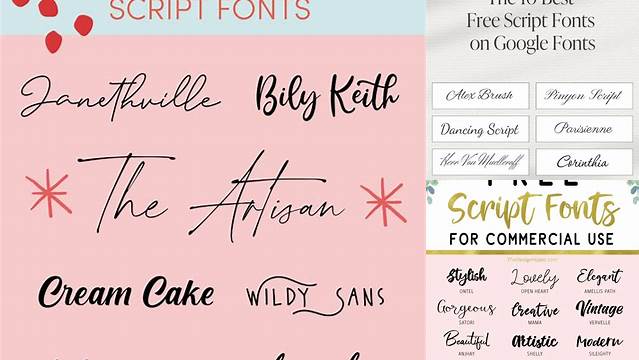
Best Free Script Fonts: Reddit's Top Picks
Hey guys! Are you on the hunt for some stunning script fonts but don't want to break the bank? You've come to the right place! We've scoured Reddit, the ultimate hub for all things cool and creative, to bring you the best free script fonts out there. Whether you're designing invitations, logos, websites, or anything in between, finding the perfect font can make all the difference. So, let's dive into the world of elegant swashes and flowing lines and discover some incredible fonts that won't cost you a dime! This article compiles the top recommendations and discussions from Reddit communities to provide you with a comprehensive list of high-quality, free script fonts.
What are the most popular free script fonts recommended on Reddit?
Reddit is a treasure trove of opinions and recommendations, especially when it comes to design resources. When you're looking for the best free script fonts, Redditors are always ready to share their favorites. Some consistently top the lists in various threads and discussions. These popular choices often balance aesthetics, readability, and versatility, making them suitable for a wide range of projects. One of the key advantages of tapping into Reddit's collective wisdom is the real-world usage examples and feedback you can find, helping you make a more informed decision. So, what are these top recommendations? Let's explore some of the most-loved free script fonts that Redditors rave about and understand why they've earned such high praise. Prepare to discover some fonts that might just become your new go-to choices for all your design needs!
Best free calligraphy fonts Reddit recommendations
When it comes to calligraphy fonts, Reddit users have some strong opinions on which ones stand out from the crowd. The best free script fonts often mimic the elegant, flowing strokes of traditional calligraphy, making them perfect for adding a touch of sophistication to your designs. Redditors frequently recommend fonts that offer a balance of beauty and readability, ensuring they look stunning without sacrificing usability. You'll often see suggestions for fonts with delicate flourishes and smooth connections between letters, creating a seamless, handwritten feel. These types of fonts are ideal for wedding invitations, elegant logos, and anything that needs a touch of class. But with so many options available, how do you choose the right one? Reddit discussions often delve into the nuances of each font, highlighting their strengths and weaknesses for different applications. Let's explore some of the top calligraphy font recommendations from the Reddit community to help you find the perfect fit for your next project.
Top free handwriting fonts according to Reddit users
If you're aiming for a personal, approachable feel in your designs, handwriting fonts are the way to go. And who better to ask for recommendations than the Reddit community? Redditors are always on the lookout for best free script fonts that capture the authentic look of handwriting, from neat and legible scripts to more casual, messy styles. These fonts are perfect for adding a human touch to your projects, making them feel more relatable and engaging. Whether you're designing a blog header, creating social media graphics, or crafting a heartfelt message, a good handwriting font can make all the difference. But with so many options out there, it can be tough to know where to start. That's where Reddit comes in! Redditors often share their favorite handwriting fonts, along with examples of how they've used them in their own work. Let's explore some of the top picks and discover the charm and versatility of free handwriting fonts.
How to pair free script fonts with other fonts (Reddit tips)
Choosing the perfect script font is just the first step – pairing it with the right complementary font is where the magic really happens! But how do you create a harmonious visual balance? Reddit users have plenty of tips and tricks for pairing best free script fonts with other fonts to achieve a professional and polished look. The key is to create contrast while maintaining readability and overall aesthetic appeal. Redditors often suggest pairing a script font with a clean, sans-serif font for a modern and balanced feel. For example, a flowing script paired with a simple font like Montserrat or Open Sans can create a striking contrast that's both elegant and easy to read. Another popular tip is to use a script font sparingly, such as for headings or callouts, and use a more legible font for the main body text. Reddit discussions often include examples of successful font pairings, giving you visual inspiration and practical advice. Let's explore some of these Reddit tips and learn how to master the art of font pairing to elevate your designs.
Reddit's favorite free script fonts for logos
When it comes to logo design, the font you choose can make or break your brand identity. A script font can add a touch of elegance, personality, and memorability to your logo, but finding the right one can be a challenge. Luckily, Reddit users have plenty of opinions and recommendations on the best free script fonts for logos. Redditors often emphasize the importance of legibility and versatility when selecting a script font for a logo. A font might look beautiful on its own, but it needs to be clear and recognizable in various sizes and applications, from business cards to websites. Reddit discussions often highlight fonts that strike a balance between style and practicality, ensuring your logo looks professional and impactful. You'll find recommendations for fonts with clean lines, unique flourishes, and a timeless appeal. Let's delve into the Reddit community's favorite free script fonts for logos and discover the secrets to creating a logo that truly stands out.
Free script fonts for wedding invitations: Reddit's elegant choices
Planning a wedding involves countless details, and choosing the right font for your invitations is crucial for setting the tone and style of your big day. Script fonts are a popular choice for wedding invitations, as they evoke a sense of elegance, romance, and sophistication. But with so many options available, where do you even start? Reddit users have you covered with their recommendations for the best free script fonts for wedding invitations. Redditors often suggest fonts that are both beautiful and legible, ensuring your invitations look stunning and are easy to read. You'll find discussions on fonts with delicate swashes, graceful curves, and a touch of personality. Many Reddit users also share tips on how to pair script fonts with other fonts to create a cohesive and visually appealing invitation suite. From classic calligraphy-inspired fonts to more modern and whimsical scripts, there's a perfect free font out there for every wedding style. Let's explore the Reddit community's elegant choices and discover the ideal font to make your wedding invitations truly special.
Best free script fonts for Cricut projects Reddit recommends
Cricut machines have opened up a world of crafting possibilities, and choosing the right font is essential for creating beautiful and precise designs. Script fonts are a popular choice for Cricut projects, adding a personal and elegant touch to everything from cards and signs to home decor. But not all fonts are created equal when it comes to Cricut, so where do you turn for advice? Reddit, of course! Redditors in the Cricut community are always sharing their favorite fonts and tips for getting the best results. They often recommend fonts that are clean, smooth, and easy to cut, ensuring your Cricut projects look professional and polished. You'll find discussions on fonts with consistent line thickness, minimal fine details, and a design that holds up well when cut and weeded. The best free script fonts for Cricut often balance style and functionality, providing a beautiful aesthetic without sacrificing ease of use. Let's dive into the Reddit community's recommendations and discover the perfect free script fonts for your next Cricut project.
Free cursive fonts for Microsoft Word: Reddit's top picks
Microsoft Word is a go-to tool for countless writing and design tasks, and sometimes you need a beautiful cursive font to add a special touch to your documents. Whether you're crafting a resume, writing a letter, or designing a flyer, the right font can make all the difference. But which cursive fonts are the best, and where can you find them for free? Reddit users have plenty of recommendations to share! Redditors often suggest fonts that are both elegant and legible in Word documents, ensuring your text looks professional and is easy to read. You'll find discussions on fonts with smooth curves, consistent spacing, and a design that works well on screen and in print. The best free script fonts for Microsoft Word strike a balance between style and practicality, providing a beautiful aesthetic without sacrificing readability. Many Reddit users also share tips on how to install and use fonts in Word, making the process seamless and straightforward. Let's explore the Reddit community's top picks and discover the perfect free cursive fonts to enhance your Microsoft Word documents.
Reddit's free script fonts for Procreate lettering
Procreate is a powerhouse app for digital artists and letterers, and choosing the right font can significantly enhance your artwork. Script fonts are particularly popular in Procreate, adding a touch of elegance and personality to your designs. But with so many fonts available, where do you start? Reddit users have plenty of suggestions for the best free script fonts to use in Procreate. Redditors often recommend fonts that are smooth, versatile, and easy to work with in the app. You'll find discussions on fonts with clean lines, consistent weight, and a design that's well-suited for digital lettering. The best free script fonts for Procreate often balance style and functionality, providing a beautiful aesthetic while remaining easy to manipulate and customize. Many Reddit users also share tips on how to import fonts into Procreate and use them effectively in your lettering projects. Let's dive into the Reddit community's recommendations and discover the perfect free script fonts to elevate your Procreate creations.
Unique free script fonts Reddit users are loving
Tired of the same old script fonts and looking for something a little different? Reddit users are always on the hunt for unique and interesting fonts, and they're happy to share their discoveries. If you're seeking best free script fonts that stand out from the crowd, Reddit is a great place to find inspiration. Redditors often recommend fonts with distinctive features, such as unusual letterforms, playful swashes, or a hand-drawn feel. You'll find discussions on fonts that are perfect for adding a touch of personality and creativity to your designs. These unique script fonts can help your projects stand out and make a lasting impression. But where do you even begin to find these hidden gems? Reddit discussions often highlight lesser-known font foundries and websites that offer a treasure trove of unique and free script fonts. Let's explore some of the Reddit community's favorite unique free script fonts and discover the perfect font to make your designs truly memorable.
Modern free script fonts: Reddit's trendy picks
If you're aiming for a contemporary and stylish look, modern script fonts are the way to go. But with so many options out there, it can be tough to find the perfect one. Reddit users are always on the cutting edge of design trends, and they have plenty of recommendations for the best free script fonts. Redditors often suggest fonts that are sleek, minimalist, and on-trend. You'll find discussions on fonts with clean lines, geometric shapes, and a modern sensibility. These fonts are perfect for creating designs that feel fresh, current, and visually appealing. Modern script fonts often strike a balance between elegance and simplicity, making them versatile for a wide range of projects. Reddit discussions often highlight fonts that are popular in the design world right now, giving you a glimpse into what's trending. Let's explore the Reddit community's favorite modern free script fonts and discover the perfect font to give your designs a contemporary edge.
Elegant free script fonts recommended on Reddit
For projects that demand sophistication and grace, elegant script fonts are a classic choice. But finding a free option that truly embodies elegance can be a challenge. Luckily, Reddit users have plenty of recommendations for the best free script fonts that exude refinement and style. Redditors often suggest fonts with flowing lines, delicate swashes, and a timeless appeal. You'll find discussions on fonts that are perfect for wedding invitations, formal announcements, and other projects that call for a touch of class. These elegant script fonts often draw inspiration from traditional calligraphy, adding a sense of tradition and heritage to your designs. Reddit discussions often delve into the nuances of each font, highlighting their unique characteristics and suitability for different applications. Let's explore some of the Reddit community's top picks for elegant free script fonts and discover the perfect font to elevate your designs.
Best free script fonts for tattoos Reddit users suggest
Tattoos are a permanent form of self-expression, so choosing the right font is crucial for ensuring your ink looks amazing for years to come. Script fonts are a popular choice for tattoos, adding a touch of elegance and personality to your design. But what fonts hold up best over time, and which ones are recommended by tattoo enthusiasts? Reddit users have plenty of experience and opinions to share on the best free script fonts for tattoos. Redditors often suggest fonts that are clean, legible, and timeless, ensuring your tattoo looks great now and in the future. You'll find discussions on fonts with consistent line thickness, clear letterforms, and a design that won't blur or fade easily. The best free script fonts for tattoos often balance style and practicality, providing a beautiful aesthetic while remaining easy to read and maintain. Let's dive into the Reddit community's recommendations and discover the perfect free script fonts for your next tattoo.
Free script fonts with swashes: Reddit's decorative favorites
If you want to add a touch of flair and personality to your designs, script fonts with swashes are the way to go. These decorative flourishes can make your text stand out and add a sense of elegance and whimsy. But with so many swash fonts available, where do you even begin? Reddit users have plenty of recommendations for the best free script fonts with swashes. Redditors often suggest fonts with well-designed swashes that complement the letterforms and add a touch of sophistication. You'll find discussions on fonts with varying degrees of ornamentation, from subtle flourishes to elaborate swirls. These fonts are perfect for creating headlines, logos, invitations, and other projects that need a touch of visual interest. Reddit discussions often highlight fonts that strike a balance between style and readability, ensuring your text looks beautiful without sacrificing legibility. Let's explore some of the Reddit community's decorative favorites and discover the perfect free script font with swashes for your next project.
How to identify a free script font for commercial projects (Reddit guide)
Navigating font licenses can be tricky, especially when you're using fonts for commercial projects. It's crucial to ensure you have the legal right to use a font without violating copyright laws. So, how do you identify best free script fonts that are safe to use for commercial purposes? Reddit users have plenty of advice and resources to share. Redditors often emphasize the importance of checking the font's license before using it in any project that generates income. You'll find discussions on how to read font licenses, what terms to look for, and where to find reliable information about font usage rights. Reddit users also recommend using reputable font websites that clearly indicate the licensing terms for each font, such as Google Fonts and Font Squirrel. These platforms often offer fonts with licenses that explicitly permit commercial use, giving you peace of mind. Let's delve into the Reddit community's guide to identifying free script fonts for commercial projects and learn how to protect yourself while creating stunning designs.
Reddit's advice on using free script fonts online
Using script fonts online can add a touch of personality and style to your website, blog, or social media presence. But not all script fonts are created equal when it comes to web use. Some fonts may not render well on different devices or browsers, leading to a poor user experience. So, what's the best way to use best free script fonts online? Reddit users have plenty of advice to share. Redditors often recommend using web-safe script fonts that are optimized for online display. You'll find discussions on fonts that are legible, load quickly, and look great on a variety of screens. Reddit users also suggest using font pairing techniques to ensure your script font complements your other web fonts and creates a cohesive design. It's crucial to consider factors such as readability, loading time, and cross-browser compatibility when choosing a script font for your online projects. Let's explore the Reddit community's advice on using free script fonts online and discover the best practices for creating a visually appealing and user-friendly web presence.
Free script fonts that look expensive: Reddit's hidden gems
Who doesn't love finding a freebie that looks like it cost a fortune? When it comes to script fonts, there are plenty of hidden gems out there that offer a high-end look without the hefty price tag. Reddit users are experts at uncovering these treasures, and they're happy to share their finds. If you're seeking best free script fonts that exude luxury and sophistication, Reddit is the place to be. Redditors often recommend fonts with elegant letterforms, refined swashes, and a timeless appeal. You'll find discussions on fonts that look like they belong in a designer's collection, but are actually available for free. These fonts can elevate your projects and give them a professional, polished look. But where do you find these elusive gems? Reddit discussions often highlight lesser-known font foundries and websites that offer a selection of high-quality free script fonts. Let's explore some of the Reddit community's favorite free script fonts that look expensive and discover the secrets to achieving a luxurious aesthetic without breaking the bank.
Reddit's favorite free brush script fonts
Brush script fonts are a fantastic way to add a hand-painted, artistic feel to your designs. These fonts mimic the strokes of a brush or marker, creating a casual and expressive look. But with so many brush script fonts available, where do you start your search? Reddit users have plenty of recommendations for the best free script fonts. Redditors often suggest fonts with textured strokes, varying line weights, and a natural, hand-drawn aesthetic. You'll find discussions on fonts that are perfect for creating logos, posters, social media graphics, and other projects that need a touch of personality. These brush script fonts can add a unique and creative flair to your designs. Reddit discussions often highlight fonts that strike a balance between style and legibility, ensuring your text looks beautiful and is easy to read. Let's explore some of the Reddit community's favorite free brush script fonts and discover the perfect font to bring an artistic touch to your next project.
Free script fonts for Cricut writing projects: Reddit's tips
Using your Cricut for writing projects opens up a world of creative possibilities, from personalized cards to custom home decor. But choosing the right script font is crucial for achieving clean, precise results. Not all fonts are created equal when it comes to Cricut writing, so where do you turn for advice? Reddit, of course! Redditors in the Cricut community are always sharing their favorite fonts and tips for success. They often recommend fonts that are smooth, simple, and easy to write with a Cricut pen. You'll find discussions on fonts with consistent line thickness, minimal fine details, and a design that produces clear, legible text. The best free script fonts for Cricut writing projects often balance style and functionality, providing a beautiful aesthetic while remaining easy to work with. Reddit users also share tips on adjusting font settings and using the correct pen pressure for optimal results. Let's dive into the Reddit community's recommendations and discover the perfect free script fonts for your next Cricut writing project.
Free vintage script fonts: Reddit's classic choices
If you're aiming for a retro or nostalgic feel in your designs, vintage script fonts are the perfect choice. These fonts evoke the charm and elegance of bygone eras, adding a touch of history and character to your projects. But finding authentic-looking vintage script fonts for free can be a challenge. Luckily, Reddit users have plenty of recommendations to share. Redditors often suggest fonts that mimic the letterforms and styles of vintage signage, advertisements, and ephemera. You'll find discussions on fonts with distressed textures, ornate details, and a timeless appeal. These fonts are perfect for creating logos, posters, invitations, and other projects that need a touch of old-world charm. The best free script fonts often balance authenticity and readability, ensuring your designs look vintage without sacrificing legibility. Let's explore some of the Reddit community's classic choices and discover the perfect free vintage script font to transport your designs back in time.
How Reddit helps in finding the best free script fonts
Reddit's power lies in its community – a vast network of individuals sharing knowledge, opinions, and recommendations. When it comes to finding the best free script fonts, Reddit serves as an invaluable resource. The platform's diverse user base includes designers, hobbyists, and typography enthusiasts who are passionate about sharing their favorite fonts and design tips. Reddit's discussion-based format allows for in-depth conversations about font styles, licensing, and usage, providing a comprehensive understanding of each font's pros and cons. You can find dedicated subreddits and threads where users post examples of fonts in action, offer pairing suggestions, and troubleshoot common font-related issues. This collaborative environment makes it easier to discover hidden gems and make informed decisions about which fonts to use in your projects. Reddit also helps you stay up-to-date on the latest font trends and releases, ensuring you always have access to the best free script fonts available. Let's explore the specific ways Reddit can assist you in your font-finding journey and unlock the platform's full potential as a design resource.
Free script fonts for personal branding: Reddit's expert opinions
Your personal brand is how you present yourself to the world, and your choice of font plays a crucial role in conveying your unique style and personality. A script font can add a touch of elegance, creativity, or approachability to your personal branding materials, but finding the right one is essential. Reddit users have plenty of expert opinions to share on the best free script fonts for personal branding. Redditors often suggest fonts that reflect your individual brand identity and resonate with your target audience. You'll find discussions on fonts that are versatile, memorable, and professional. These fonts can help you create a consistent and impactful visual identity across your website, social media profiles, business cards, and other branding materials. The best free script fonts for personal branding often strike a balance between style and legibility, ensuring your message is both visually appealing and easy to read. Reddit users also share tips on font pairing, color palettes, and other design elements that contribute to a strong personal brand. Let's delve into the Reddit community's recommendations and discover the perfect free script fonts to elevate your personal branding efforts.
Reddit's free script font alternatives to popular paid fonts
Sometimes you fall in love with a font, only to realize it comes with a hefty price tag. But don't despair! Reddit users are masters at finding free alternatives to popular paid fonts, and they're happy to share their knowledge. If you're seeking best free script fonts that mimic the look and feel of expensive fonts, Reddit is your go-to resource. Redditors often suggest fonts that share similar characteristics to well-known paid fonts, such as identical letterforms, stroke styles, and overall aesthetic. You'll find discussions comparing free and paid fonts side-by-side, highlighting their similarities and differences. These free alternatives can help you achieve a high-end look without breaking the bank. Reddit discussions often include links to font websites and resources where you can download these free fonts legally. Let's explore some of the Reddit community's favorite free script font alternatives and discover the perfect budget-friendly options for your design projects.
How to create your own script font (Reddit DIY guide)
Feeling extra creative? Why not try creating your own script font? It might sound daunting, but Reddit users have plenty of tips and resources to help you get started. Creating your own font can be a rewarding experience, allowing you to design a typeface that's truly unique and personalized. If you're interested in the DIY approach to best free script fonts, Reddit is a great place to find guidance and inspiration. Redditors often share their experiences with font design software, such as FontForge, Glyphs, and Calligraphr. You'll find discussions on the basics of letterform design, kerning, and other essential font-making skills. Reddit users also recommend resources for learning more about typography and font design, such as online tutorials and books. Creating your own script font takes time and effort, but it's a fantastic way to express your creativity and add a personal touch to your designs. Let's explore the Reddit community's DIY guide to creating your own script font and discover the tools and techniques you need to bring your font ideas to life.
Free script fonts for Instagram posts: Reddit's social media picks
Instagram is a visual platform, and your choice of font can significantly impact the look and feel of your posts. Script fonts can add a touch of personality and style to your Instagram captions, stories, and graphics, but it's important to choose fonts that are legible and visually appealing on small screens. Reddit users have plenty of recommendations for the best free script fonts for Instagram posts. Redditors often suggest fonts that are easy to read, even at small sizes, and that complement the overall aesthetic of your feed. You'll find discussions on fonts that are versatile, eye-catching, and on-trend. These fonts can help you create engaging and visually consistent content that captures your audience's attention. The best free script fonts for Instagram posts often strike a balance between style and legibility, ensuring your message is both beautiful and clear. Reddit users also share tips on using font pairing and other design elements to create a cohesive Instagram feed. Let's explore the Reddit community's social media picks and discover the perfect free script fonts to enhance your Instagram presence.
Free script fonts with multilingual support: Reddit's global options
In today's globalized world, it's increasingly important to choose fonts that support multiple languages. If you're creating designs for an international audience, you'll need to ensure your script fonts include the necessary characters and glyphs for different languages. Reddit users have plenty of recommendations for best free script fonts with multilingual support. Redditors often suggest fonts that offer a wide range of language options, including accented characters, diacritics, and other language-specific symbols. You'll find discussions on fonts that support common languages such as Spanish, French, German, and Portuguese, as well as less common languages. These fonts can help you communicate effectively with a global audience and ensure your message is understood by everyone. The best free script fonts with multilingual support often provide a consistent and legible design across different languages. Reddit users also share tips on how to check font language support and ensure your designs display correctly. Let's explore the Reddit community's global options and discover the perfect free script fonts to reach a diverse audience.
Best practices for using free script fonts (Reddit's user guide)
Finding the perfect free script font is just the first step – using it effectively is key to creating stunning designs. Reddit users have plenty of advice on best practices for using best free script fonts. Redditors often emphasize the importance of legibility, font pairing, and proper font licensing. You'll find discussions on how to choose a script font that's easy to read, even at small sizes, and how to avoid overusing script fonts in your designs. Reddit users also suggest using script fonts sparingly, such as for headings or callouts, and pairing them with a more legible sans-serif or serif font for body text. It's crucial to consider the overall design context and ensure your script font complements your other design elements. Reddit discussions often include examples of successful font usage, giving you visual inspiration and practical advice. Let's delve into the Reddit community's user guide and discover the best practices for using free script fonts to create visually appealing and effective designs.